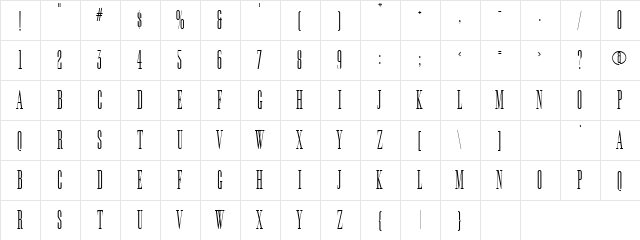
Frompton Regular
Design Context for Frompton Typeface
Frompton takes a measured approach to typography — its balanced proportions and neutral character make it a reliable workhorse for both digital and print work.